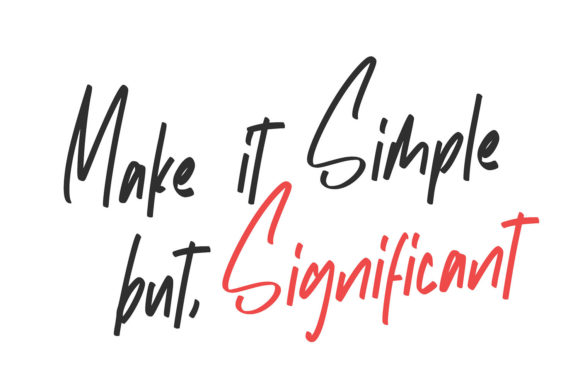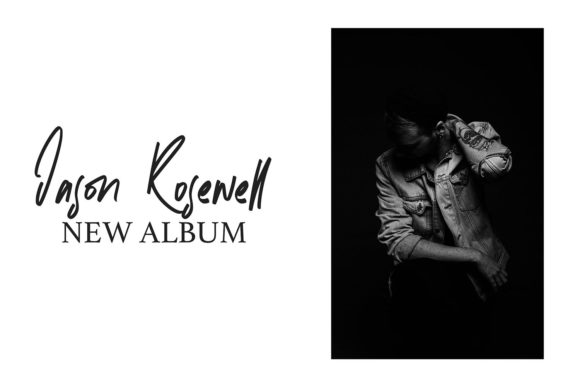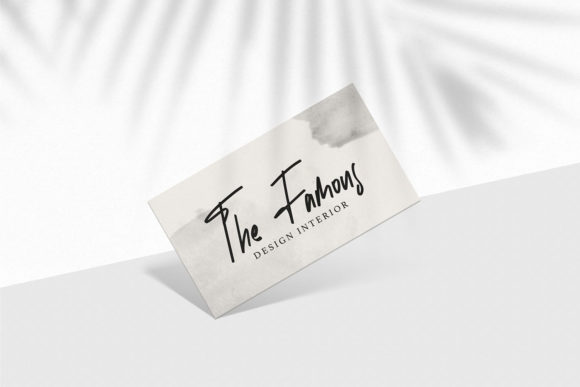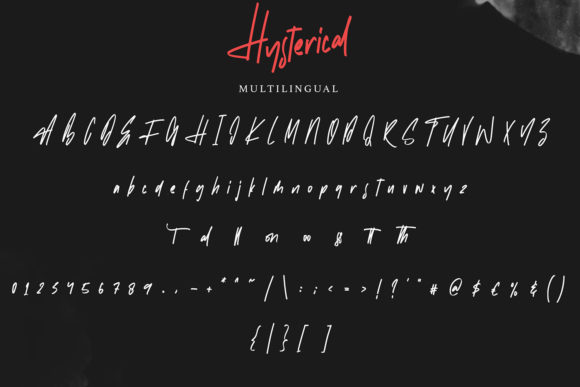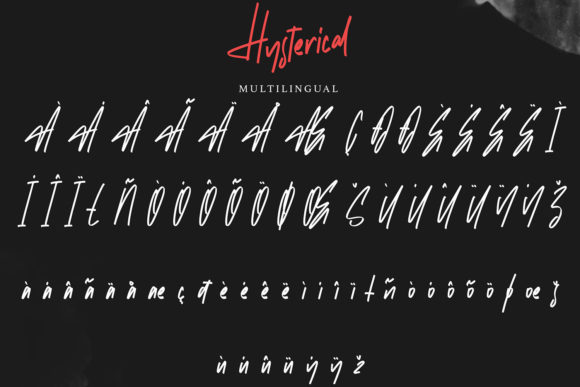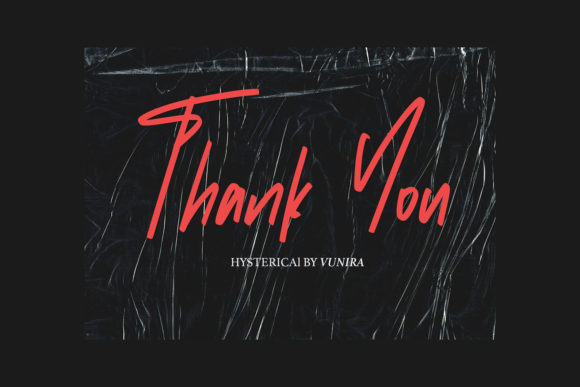
Hysterical Font
About Hysterical Font
Hysterical is a casual, fun handwritten font, created by using a brush pen. Clean and a little bit quirky, this font is the perfect fit for all of your logos, branding, social media, and crafty DIY projects.